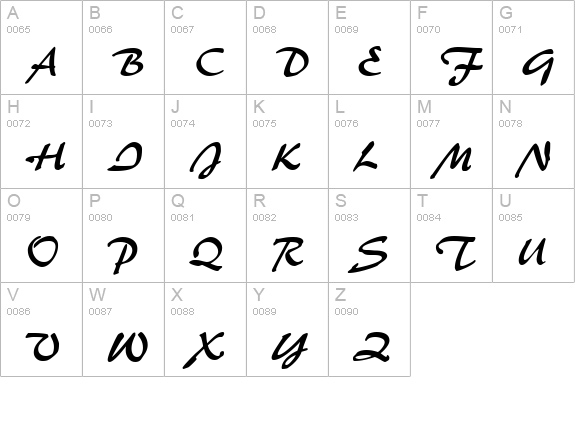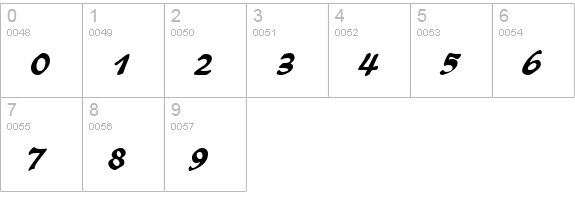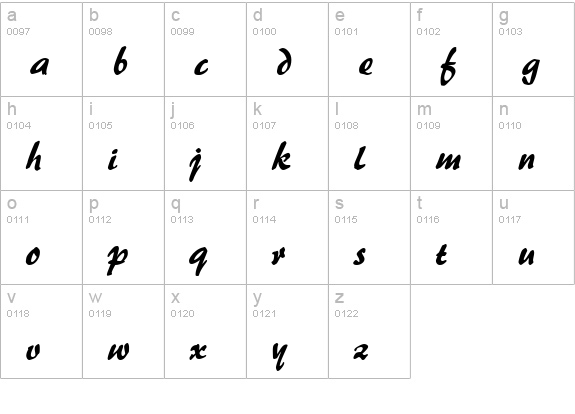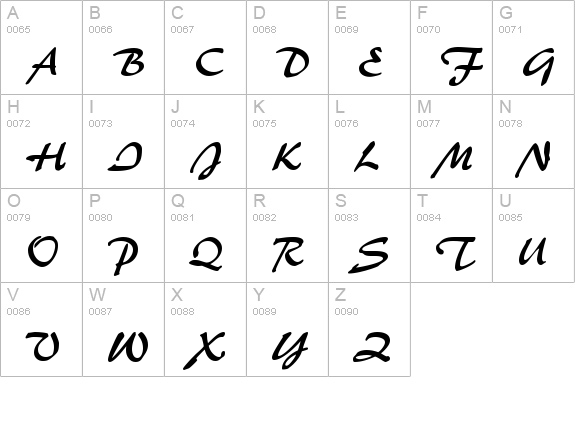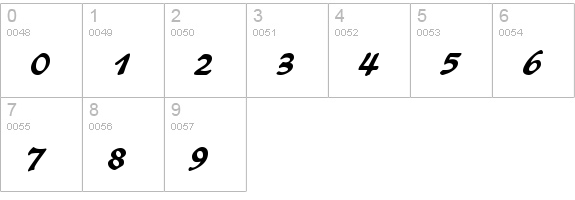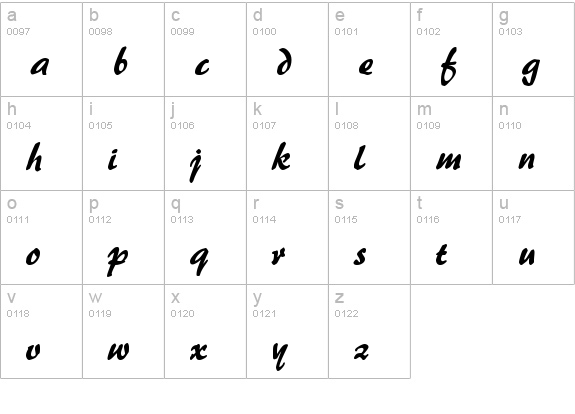
BrushFlash Regular is the standard, neutral variant in the BrushFlash typeface family \xE2\x80\x94 well suited to general body text, paragraphs, and standard typographic work.
BrushFlash Regular font is a stylish and modern typeface that exudes creativity and energy. With its bold strokes and unique design, this font is perfect for making a statement in your designs. Whether you are creating posters, social media graphics, or branding materials, BrushFlash Regular will add a touch of flair and personality. The best part? BrushFlash Regular font is completely free to download at FontsMarket.com. This means you can easily access this eye-catching font and incorporate it into your projects without any cost. Don't miss out on this fantastic opportunity to enhance your designs with BrushFlash Regular font today!